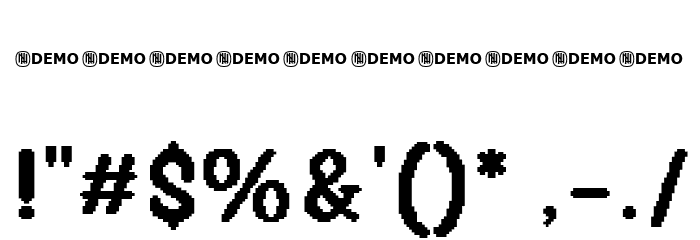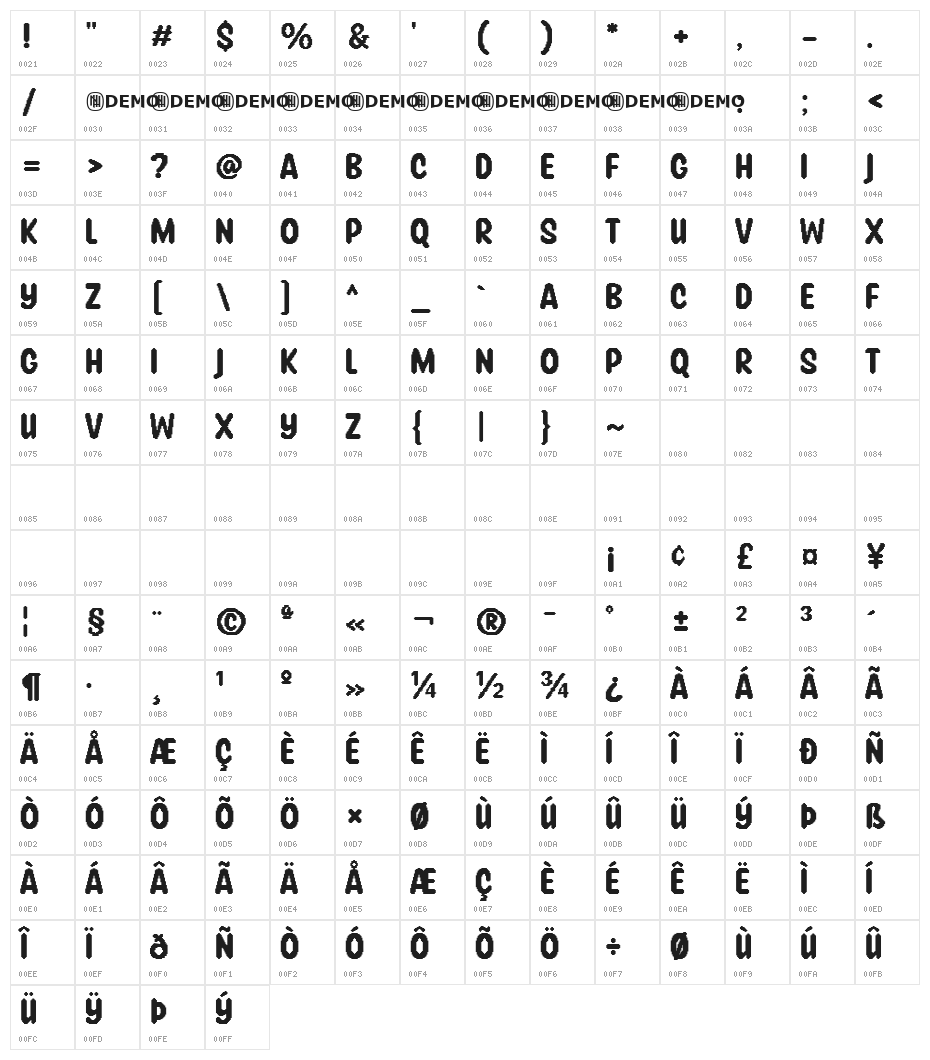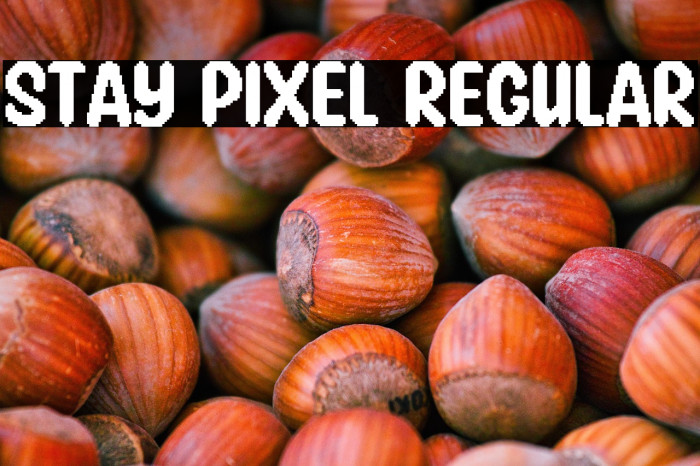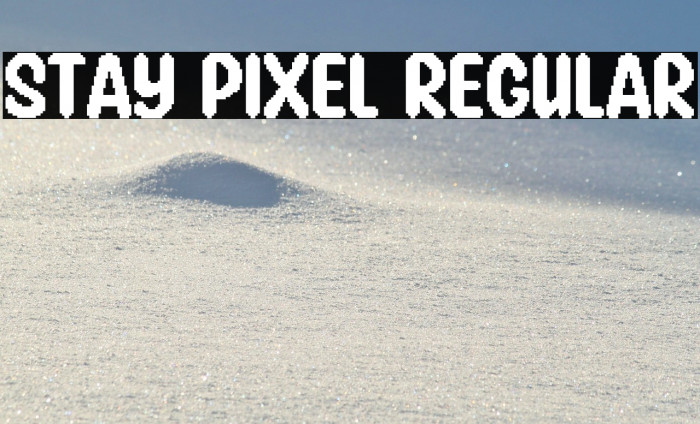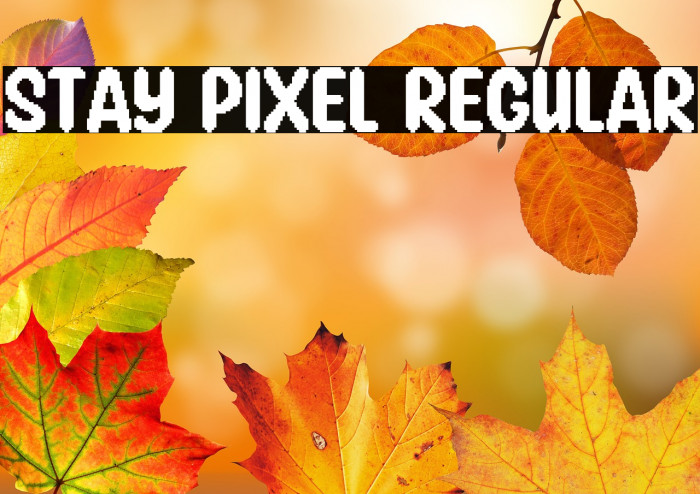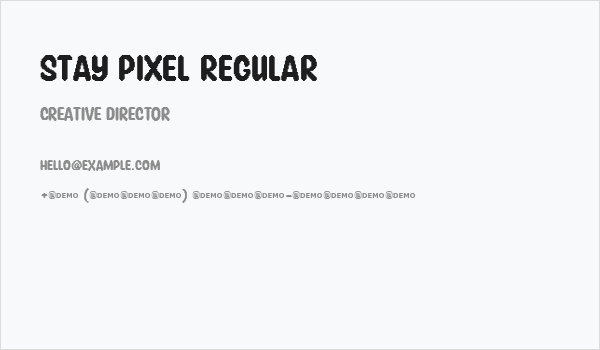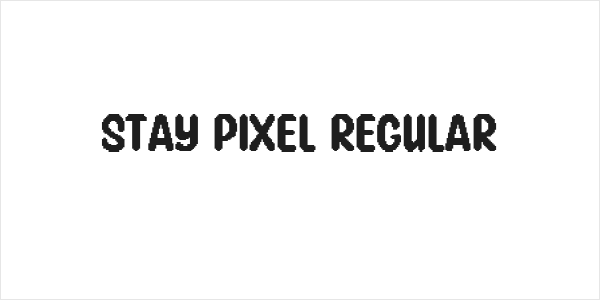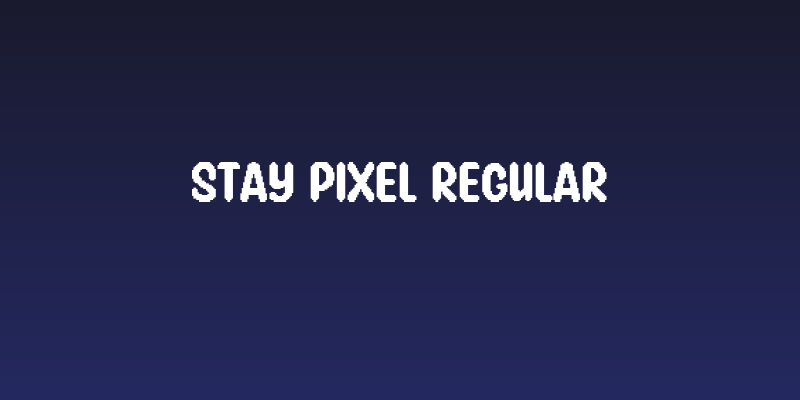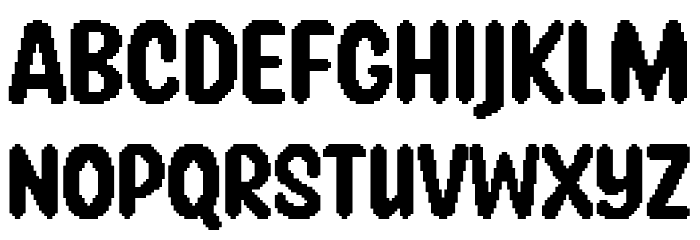
Stay Pixel Regular Font
Stay Pixel Regular Description
This font features a bold, pixelated style reminiscent of classic video game graphics. The characters are blocky and uniform, with a consistent height and width that gives it a monospaced appearance. The uppercase and lowercase letters maintain a similar structure, enhancing readability while preserving the retro aesthetic. The numbers and special characters are designed to match the overall pixelated theme, making them easily distinguishable. This font's nostalgic charm is perfect for projects that aim to evoke a sense of digital nostalgia or retro gaming culture.
| Use Case | Headlines, Logos, Digital Art |
| Proposed Projects | Ideal for retro-themed designs, video game graphics, digital art projects, and nostalgic branding. |